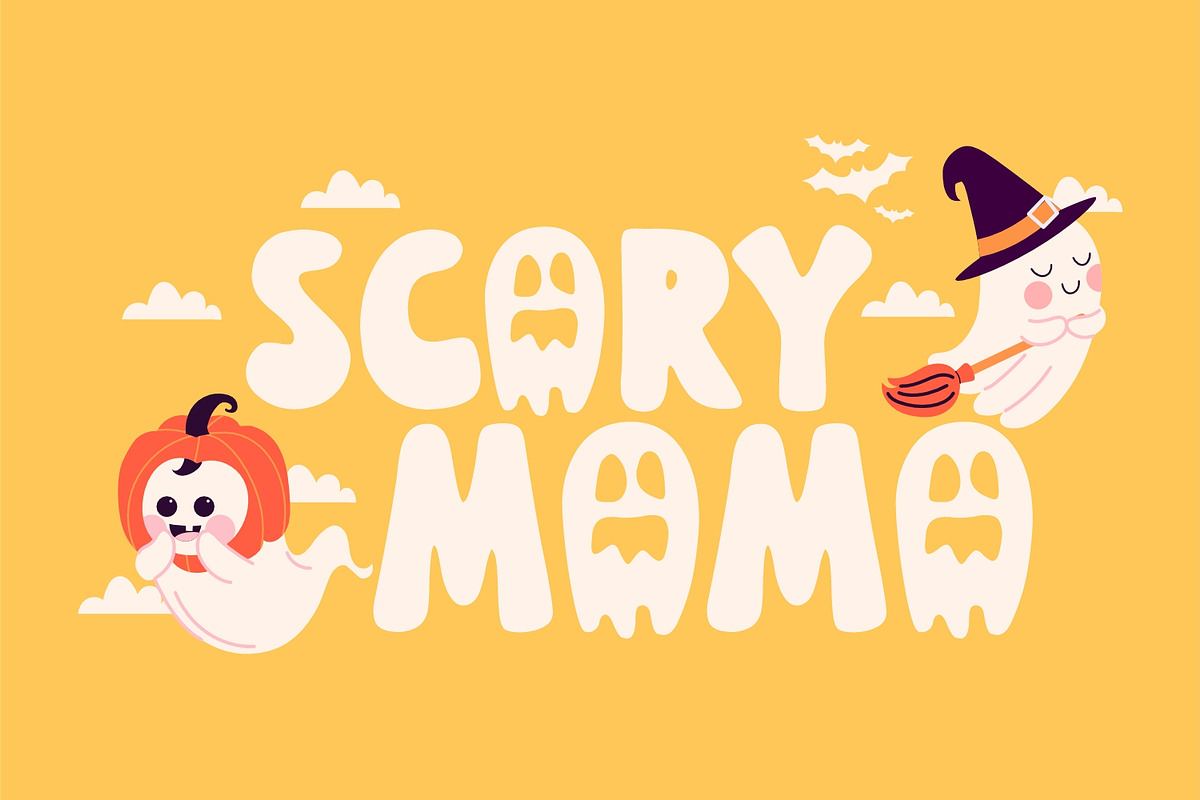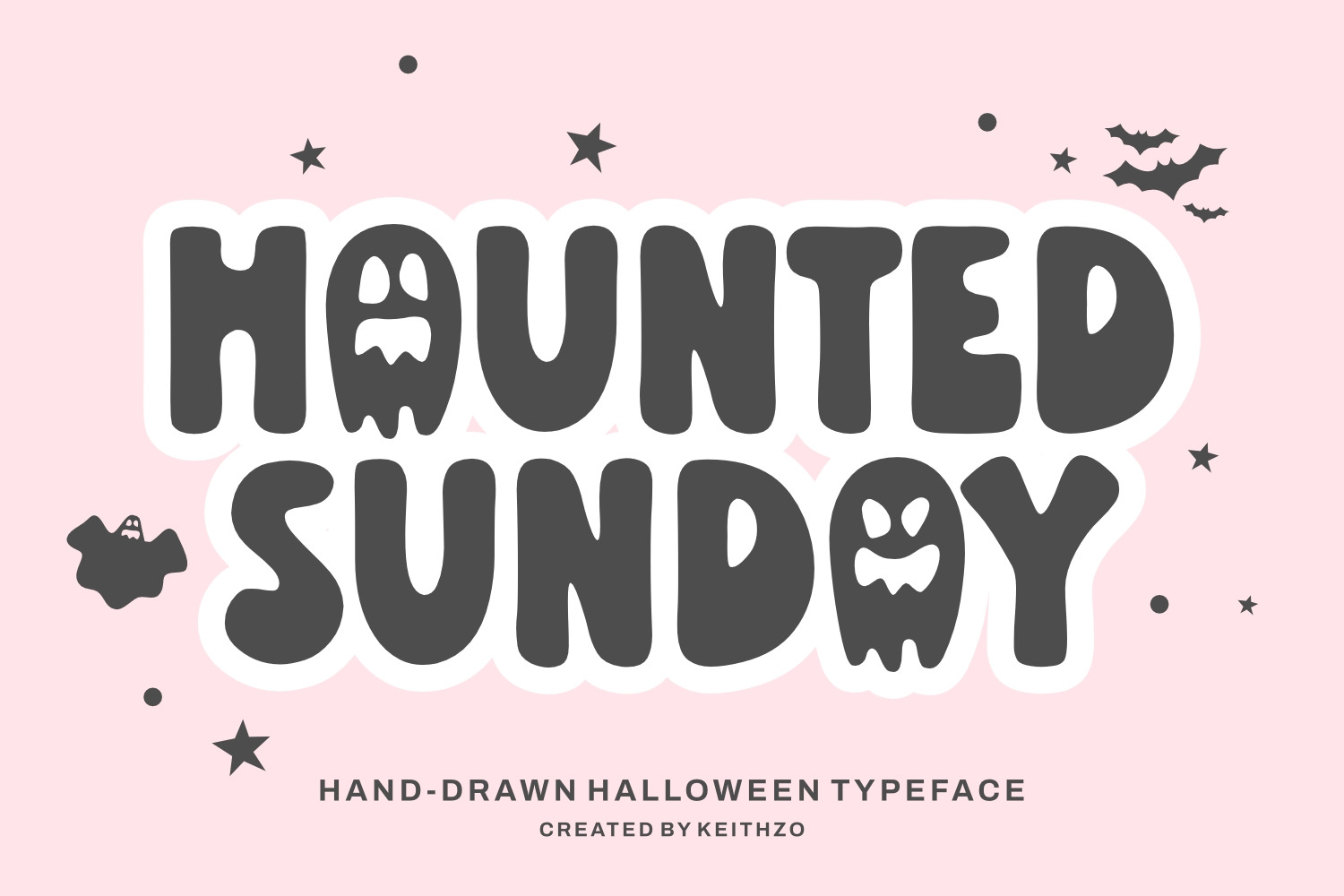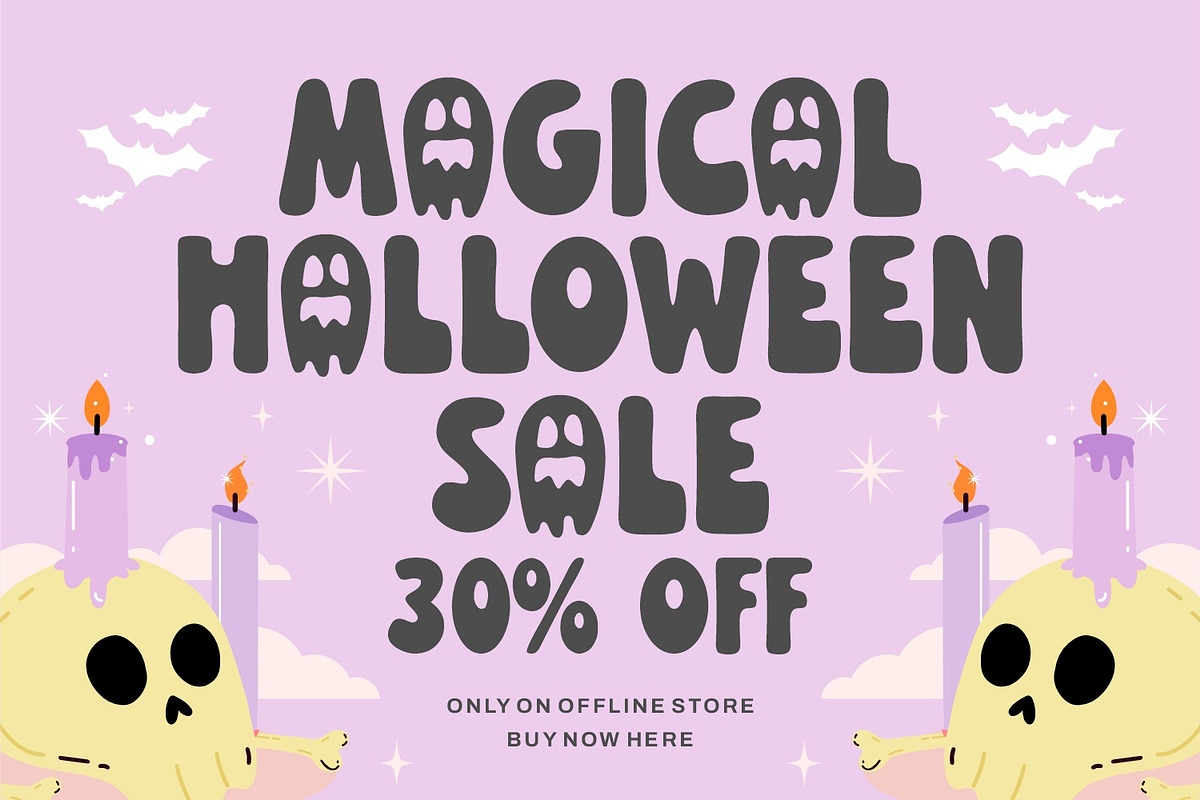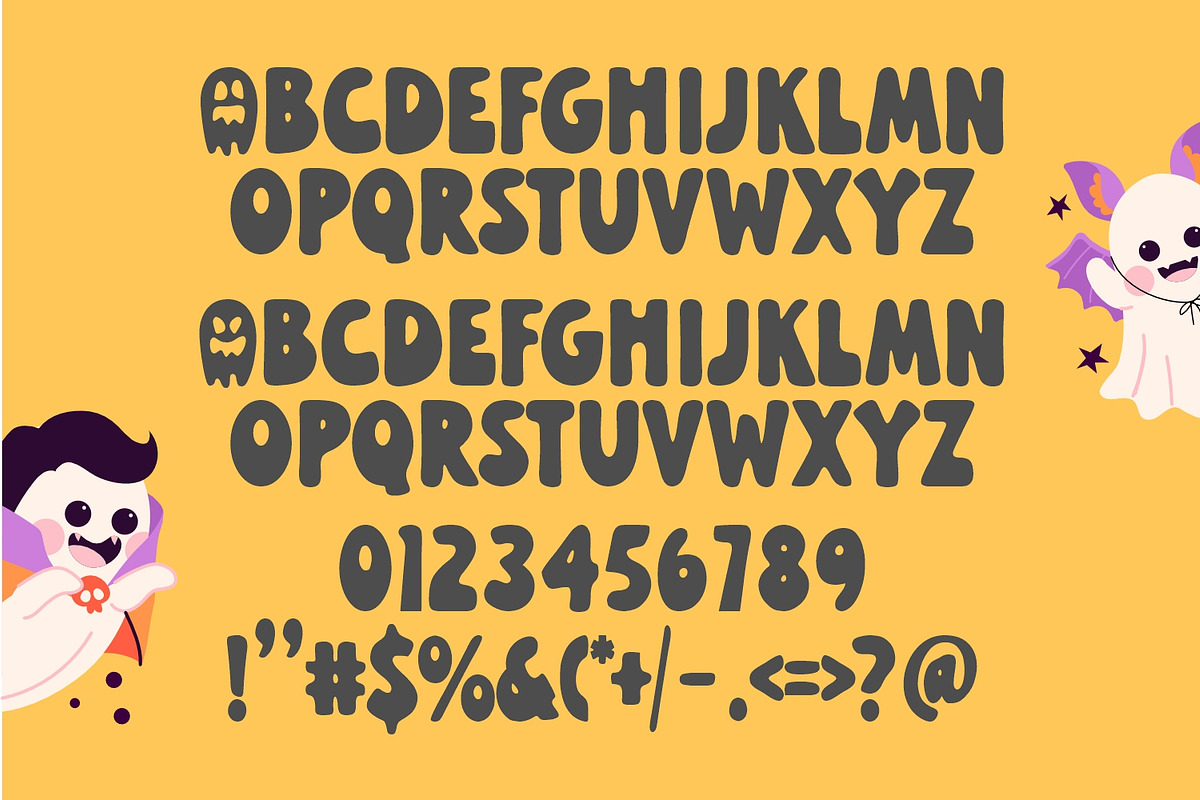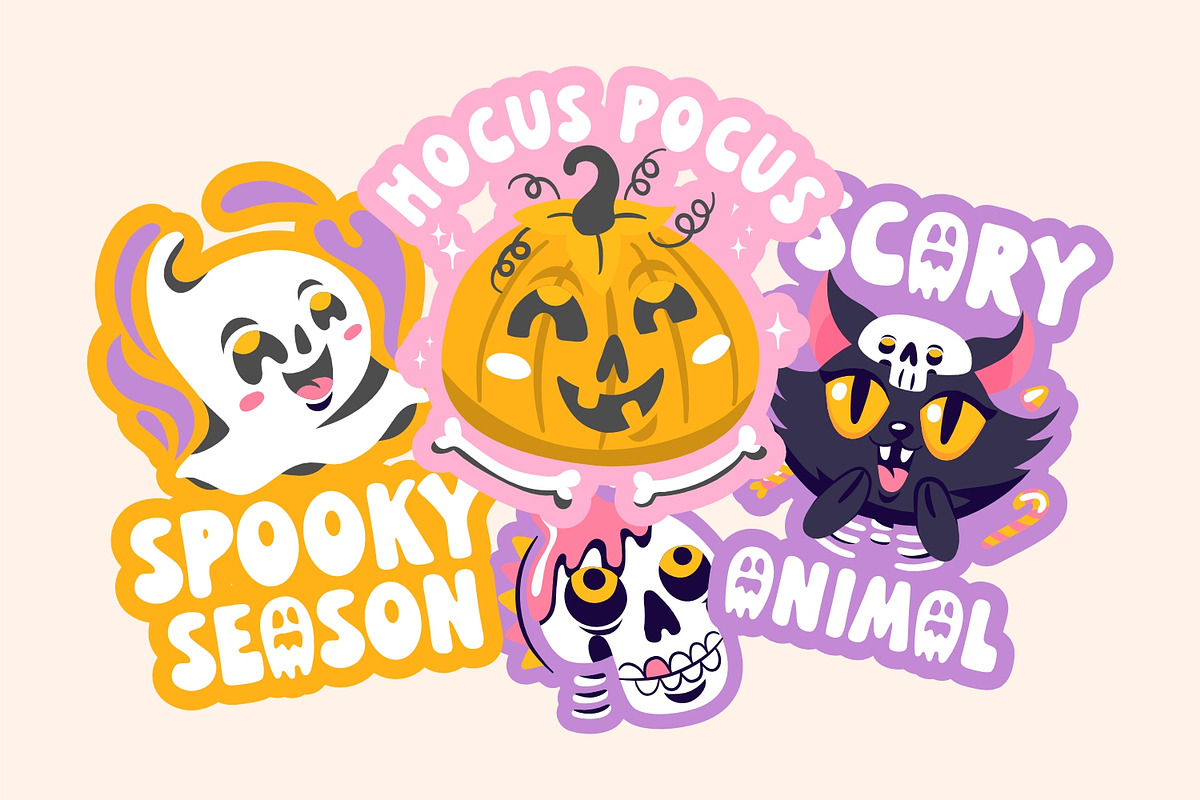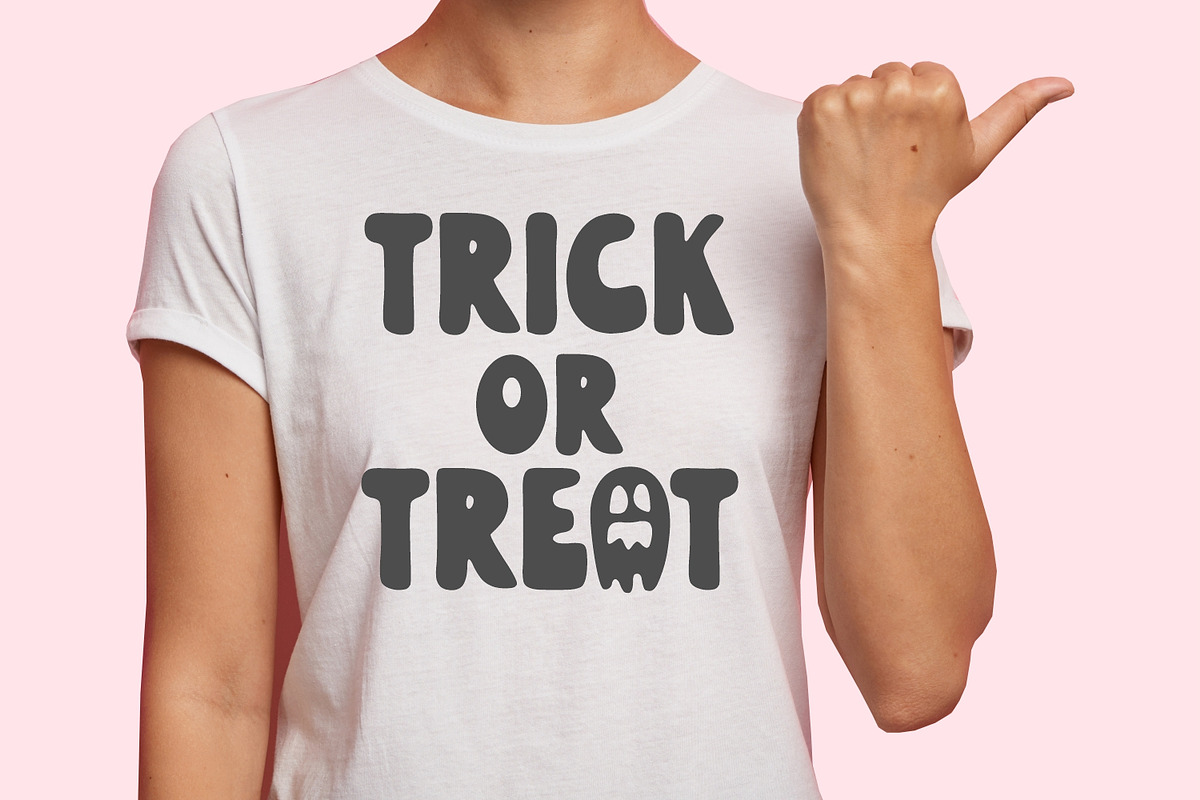
Haunted Sunday - Halloween Font
Immerse yourself in the intriguing charm of the Haunted Sunday font. A striking handwritten typeface that perfectly blends playful cuteness with a dash of eerie allure, making it an ideal fit for projects that contain an element of the occult. Haunted Sunday unfolds beautifully across logos, personalized stickers, eclectic t-shirts, and Halloween-themed crafts. So, whether it’s the thrill of a spooky celebration or a hauntingly beautiful creation, let the Haunting Sunday font accompany your Halloween journey.